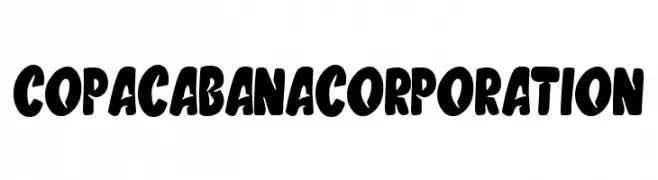
A classic serif font with a refined and elegant appearance.
A classic serif font with medium contrast, ideal for elegant and readable text.
A classic serif font with elegant curves and moderate contrast, ideal for traditional and sophisticated designs.
A bold, embossed blackletter-style font with intricate details.
A bold, intricate blackletter font with ornate and dramatic letterforms.
A bold, blackletter-style font with intricate details and a historical flair.
A classic blackletter font with ornate and dramatic letterforms.
A bold, outlined blackletter-inspired font with ornate details.
A bold, decorative blackletter-inspired font with a three-dimensional ribbon effect.
A fluid and elegant script font with a handwritten style.
A modern, condensed font with tall, narrow characters and a sleek design.
A dynamic, hand-drawn font with sketch-like strokes and playful energy.
A bold, brush-style font with dynamic and energetic strokes.
A bold, edgy font with jagged, brush-like strokes and a rebellious style.
A bold, playful font with irregular, hand-crafted edges.
A refined serif font with high contrast and elegant, slender letterforms.
A bold, distressed stencil-style font with a rugged, industrial look.
A modern, geometric font with a structured, technical design.
A modern, geometric sans-serif font with a clean and professional appearance.
A playful handwritten font with smooth curves and consistent strokes.
A vintage, typewriter-style font with a distressed, rugged texture.
A vintage typewriter-style font with a rugged, authentic feel.
A clean, modern font with consistent stroke width and high readability.
A pictogram font depicting professions through silhouette illustrations.
A bold, 3D, filled italic font with a modern, dynamic style.
A bold, 3D geometric font with a filled interior and thick outline.
A bold, 3D italic font with outlined characters and a modern, dynamic style.